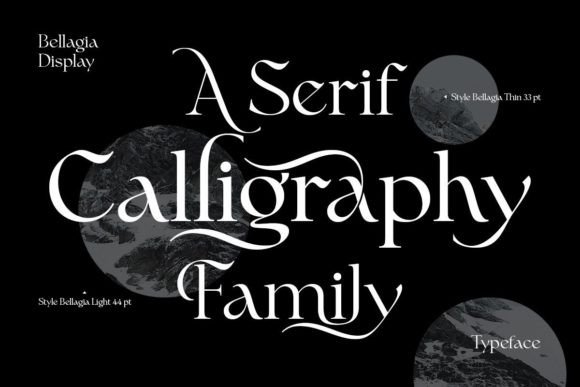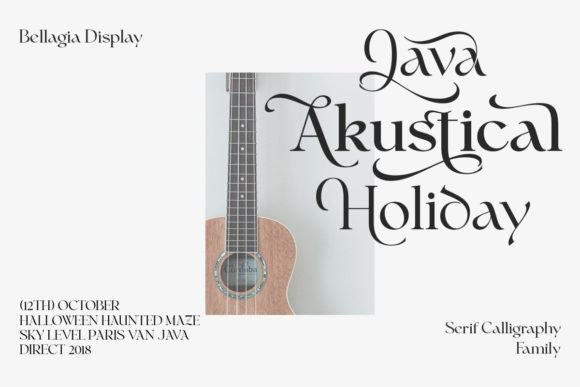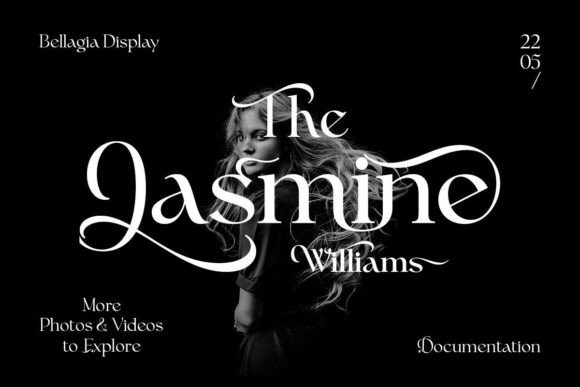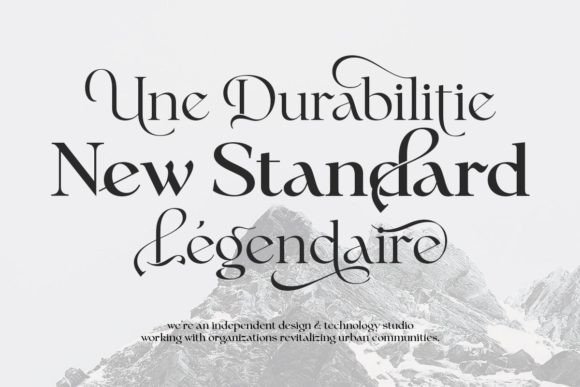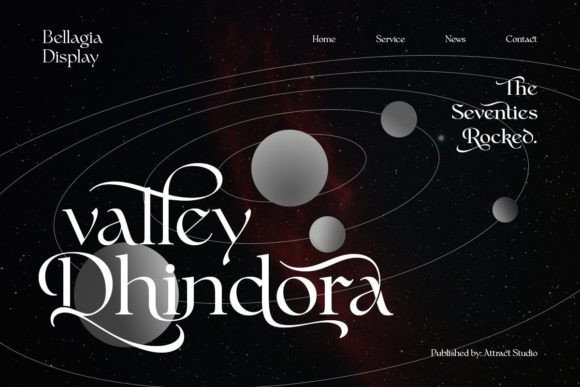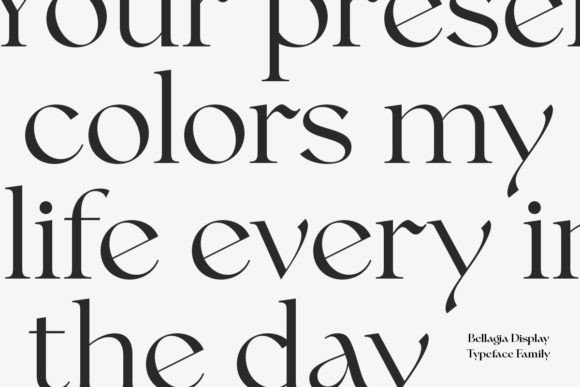
Bellagia Display Font: Elevate Your Designs with Elegance
In the world of typography, fonts play a crucial role in conveying messages, expressing emotions, and creating visual identities. For designers and crafters seeking to add a touch of sophistication and elegance to their projects, the Bellagia Display Font is an exceptional choice. This stunning font is a unique blend of two calligraphy typefaces and vintage serifs, seamlessly merged with a natural bond that exudes refinement and luxury.
The Beauty of Bellagia Display
Bellagia Display is not just a font; it’s an experience. Its design is rooted in the perfect blend of traditional calligraphy and vintage serif elements, making it a versatile and eye-catching addition to any design project. Whether you’re working on a branding project, a wedding invitation, a packaging design, or a digital platform, Bellagia Display has the potential to elevate your work to the highest levels.
Key Features of Bellagia Display Font
- Unique Blend: Bellagia Display combines two calligraphy typefaces with vintage serifs, offering a distinctive look that stands out in the world of typography.
- PUA Encoded: This font is PUA (Private Use Area) encoded, which means you can easily access all the amazing glyphs and ligatures. This feature makes it incredibly user-friendly, allowing you to unlock the full creative potential of the font without needing special software or technical expertise.
- Elegance and Versatility: The elegant flow of calligraphy combined with the classic appeal of vintage serifs makes Bellagia Display versatile enough for a wide range of projects, from high-end branding to beautiful stationery.
Applications of Bellagia Display Font
The versatility of Bellagia Display makes it suitable for various design applications. Here are some of the areas where this font truly shines:
- Branding and Logotypes: Create a lasting impression with a unique and memorable brand identity.
- Wedding and Event Invitations: Add a touch of elegance and sophistication to your invitations and event materials.
- Packaging Design: Stand out on the shelves with luxurious and eye-catching packaging.
- Digital Platforms: Enhance your website, social media, or digital advertising with a font that communicates luxury and refinement.
Why Choose Bellagia Display?
In a sea of fonts, Bellagia Display stands out for several reasons:
- Distinctive Style: Its unique blend of styles ensures your project won’t look like countless others.
- High Readability: Despite its elegant and decorative nature, Bellagia Display maintains high readability, making it suitable for both headlines and body text.
- Support for Multiple Languages: With PUA encoding and a wide range of glyphs, Bellagia Display supports multiple languages, making it a great choice for global brands.
Bellagia Display Font is more than just a typeface; it’s a design statement. Its elegant blend of calligraphy and vintage serifs, combined with PUA encoding for easy access to glyphs and ligatures, makes it an invaluable tool for designers and crafters. Whether you’re aiming to create a luxurious brand image, an elegant invitation, or standout packaging, Bellagia Display has the potential to elevate your projects to new heights. Fall in love with its beauty and sophistication, and let it be the key to unlocking a world of creative possibilities.